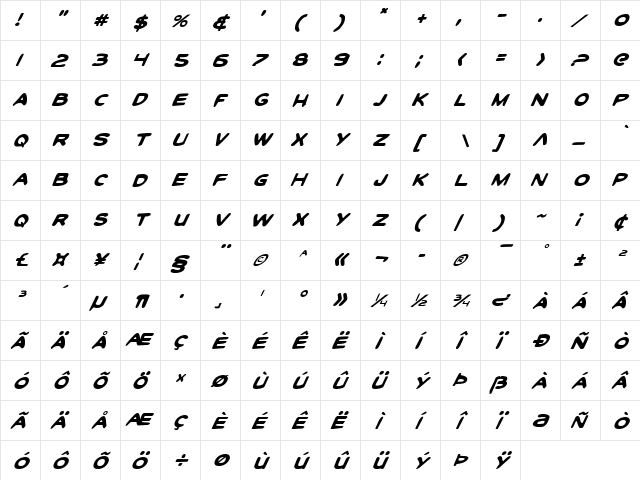
Toon Town Industrial Italic Italic Font Preview
Toon Town Industrial Italic Italic
Design Context for Toon Town Industrial Italic Typeface
Toon Town Industrial Italic offers clean, dependable letterforms without strong stylistic allegiance, making it a practical choice for designers who need flexibility. The slanted form adds forward momentum and visual energy.